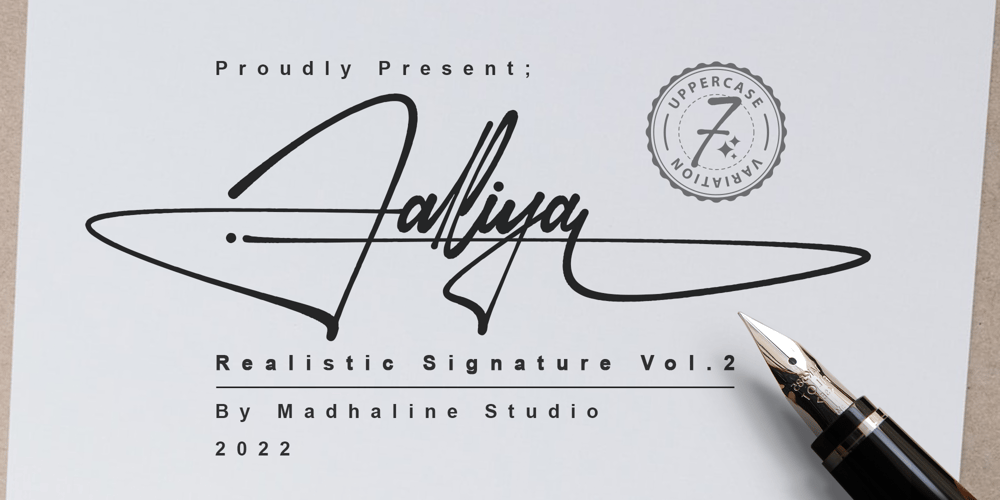
Jalliya Signature
Jalliya Signature font
Jalliya Signature Font Family was designed by Achmad Hanif Ulinuha and published by Madhaline Studio. Jalliya Signature contains 9 styles and family package options. Jalliya is a realistic signature font Vol. 2 that has its own uniqueness and characteristics from a signature font, because it is handwritten manually, so it has the impression of a true signature. This font is carefully crafted with a modern touch. This font looks elegant, luxurious, natural with a beautiful signature touch.Jalliya would perfect for photography, watermark, social media posts, advertisements, logos & branding, invitation, product designs, label, stationery, wedding designs, product packaging, special events or anything that need signature taste. Your download will include 4 font files;~ Jalliya One, Two, Three, Four, Five, Six and Seven A hand-made, all characters signature font which has a complete set of A-z characters. Includes a range of multilingual support, punctuation, ligature & alternate.~ Jalliya Tail 1 & 2 A bonus set of 104 Uppercase & Lowercase with tail. Simply select this font and type any A-Z & a-z character to create one of the bonus elements.